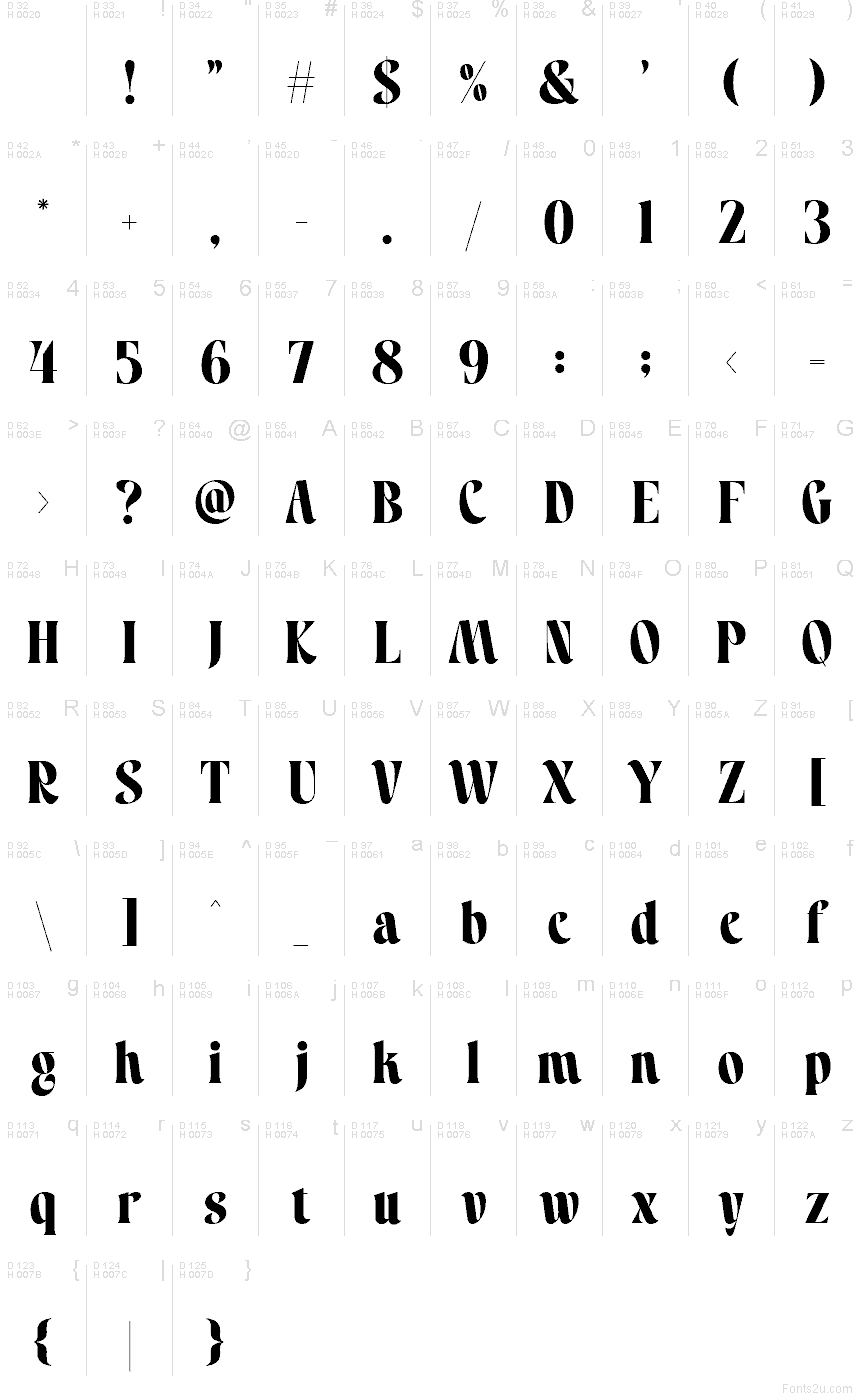
Mistegave Regular
Mistegave font by ToniStudio is a free decorative serif typeface with a dramatic, almost inky presence. Its letters swell into thick, velvety strokes, then snap into knife-sharp edges, creating a bold rhythm that feels both elegant and slightly mysterious. Rounded bowls cut with deep internal notches give the type a sculpted, carved-from-black-ink look that instantly draws the eye on any page or screen.
Using Mistegave in your layouts adds a sense of luxe theatrical flair, making this free font a natural fit for beauty and fashion branding, book covers, boutique logos, posters, packaging, and bold social media graphics. It holds up beautifully at large sizes where its curves and cuts can breathe. For balance, pair Mistegave with a clean, light sans serif for body text to let its dark, expressive shapes stay center stage.